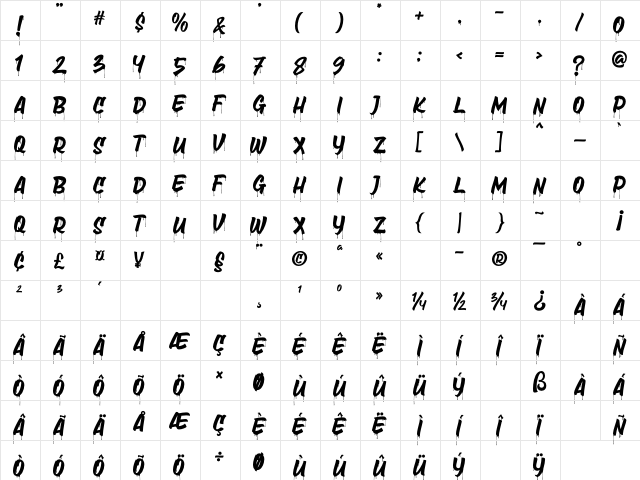
Death Markers Regular
| Foundry | Figuree Studio |
| Designer | Icep Anwar Fadhil |
Design Context for Death Markers Typeface
Death Markers carries an unsettling edge — its distorted letterforms are built to unsettle, perfectly suited to horror, Halloween, and dark creative work.
Perfect for anything that needs to unsettle — game titles, horror branding, and macabre invitations.
Font Pairing: Pair with a clean neutral sans-serif for body copy to let Death Markers's character lead without overwhelming the composition.
Pro Tip: Use Death Markers at larger display sizes for maximum impact. Consider generous tracking to let the disturbing character of each letterform breathe.